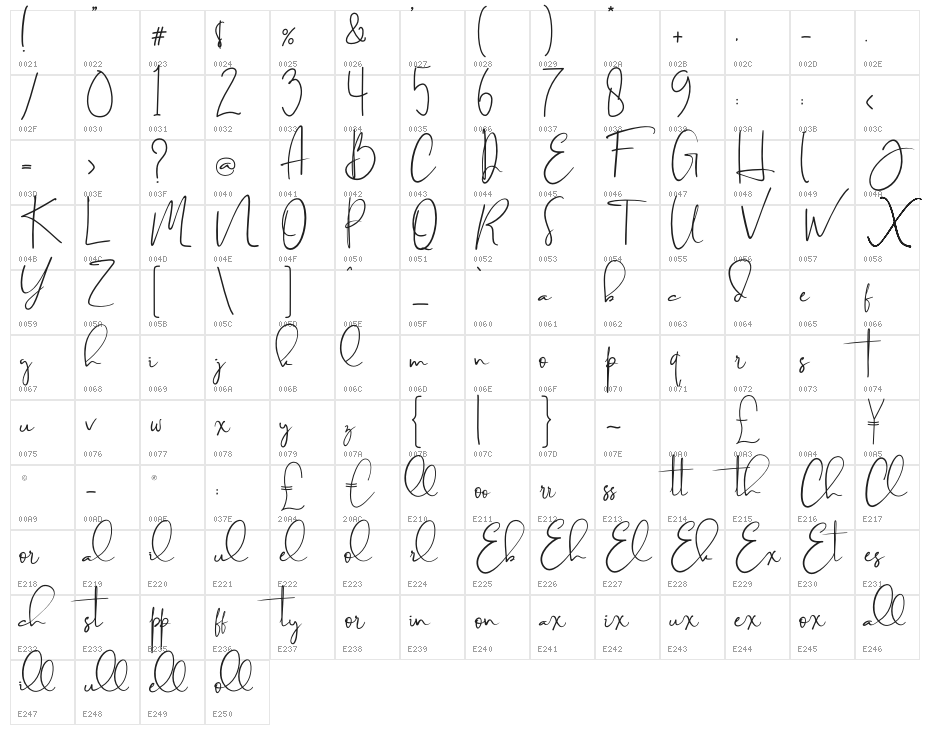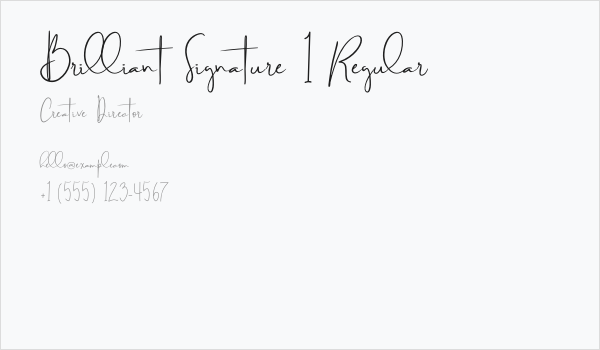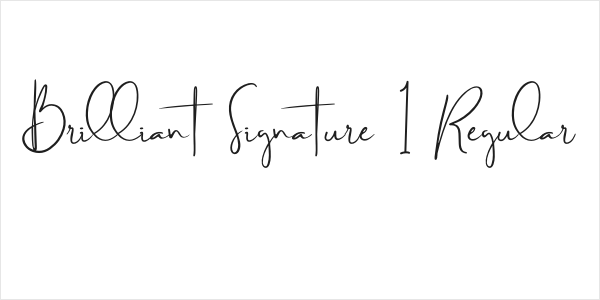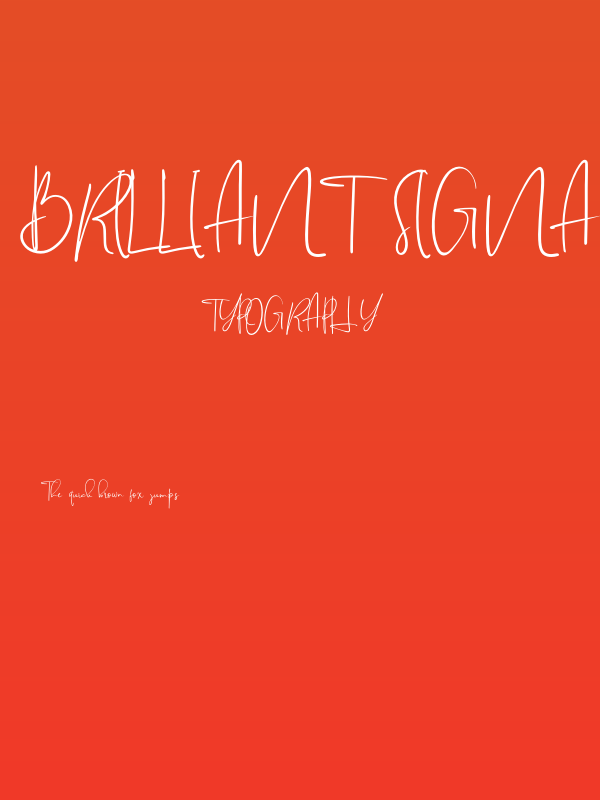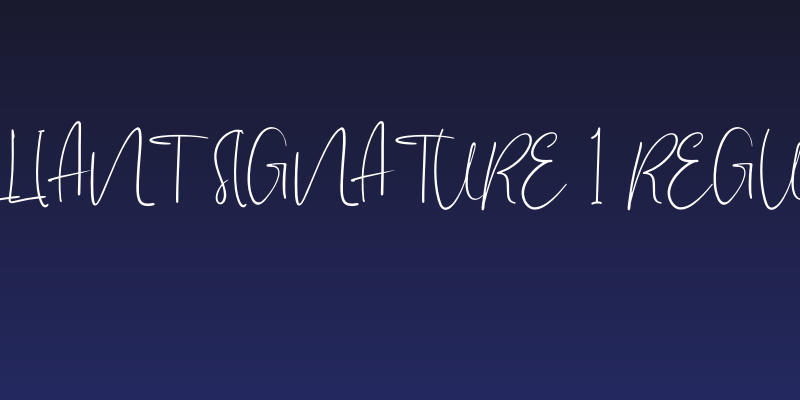
Brilliant Signature 1 Regular Font
Brilliant Signature 1 Regular Description
This font exudes a modern and elegant handwritten style, characterized by its fluid and cursive letterforms. The uppercase letters are tall and slender, with a slight slant that adds a dynamic feel. The lowercase letters are more rounded and connected, creating a seamless flow that mimics natural handwriting. The numerals are consistent with the overall style, maintaining the same fluidity and elegance. Special characters are thoughtfully designed to match the aesthetic, ensuring a cohesive look across all text elements. This font is perfect for adding a personal touch to any project, with its unique blend of sophistication and approachability.
| Proposed Projects | Ideal for wedding invitations, personal branding, social media graphics, and elegant stationery. |